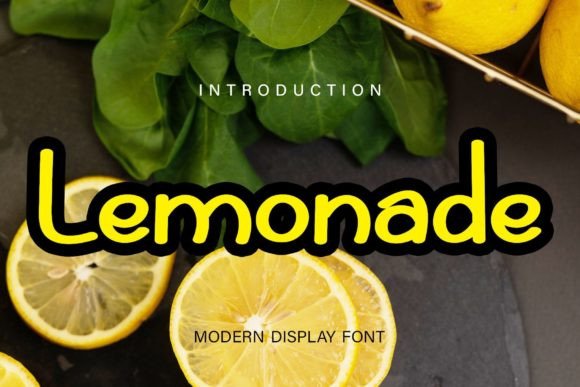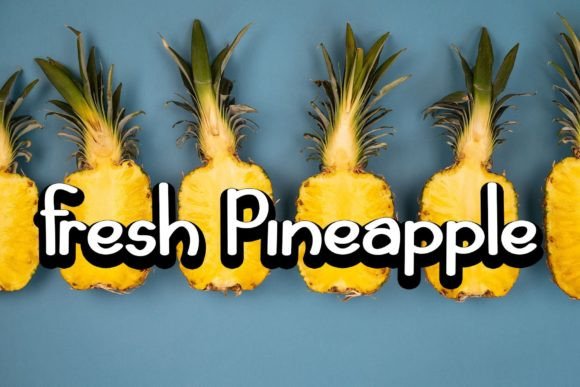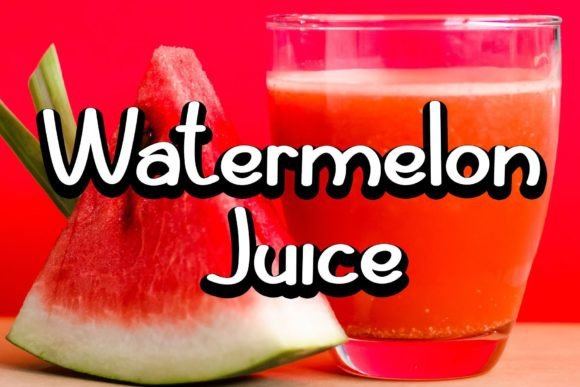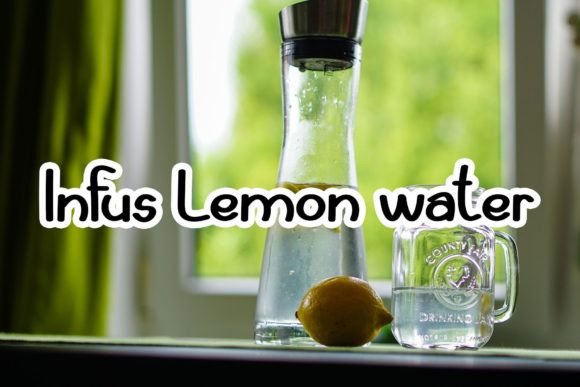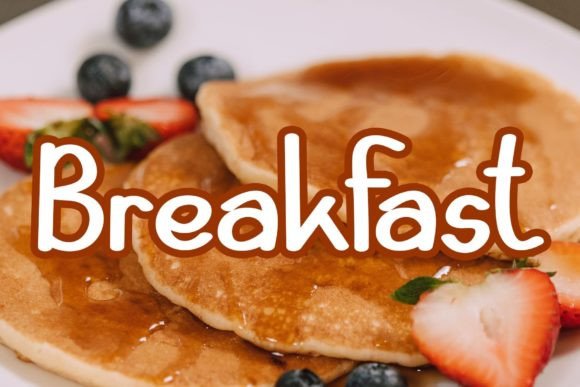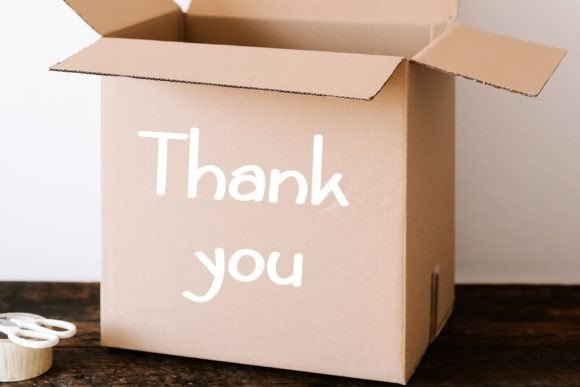
Lemonade Font
About Lemonade Font
Lemonade is more than just a font; it’s a burst of playful energy and natural charm that effortlessly adds life to your creative ideas. This fun and lively handwritten font exudes a sense of freshness and spontaneity, making it a perfect choice for a wide range of design projects.
Picture Lemonade in a summer-themed design. Its playful characters capture the essence of sunshine and joy, instantly infusing your project with a sense of warmth and enthusiasm. Whether you’re designing a cheerful party invitation, a vibrant poster for a community event, or a lively banner for a beach party, Lemonade brings a splash of color and liveliness, making your design come alive with its energetic spirit.
In nature-inspired designs, Lemonade shines brightly. Its organic and handwritten style complements projects featuring botanical elements, wildlife, or outdoor activities. Use it for eco-friendly product labels, garden event posters, or environmental awareness campaigns, and notice how it effortlessly conveys a sense of natural beauty and simplicity. The font’s casual and free-spirited vibe creates an immediate connection with nature, making your designs feel authentic and approachable.
Lemonade also adds a touch of whimsy to children’s projects. Imagine it in a playful book cover design, a colorful educational app, or a fun board game. Its friendly and approachable appearance appeals to young audiences, creating an enjoyable and engaging experience. The font’s lively and carefree nature encourages creativity and imagination, making it a delightful choice for projects aimed at kids.
Moreover, Lemonade seamlessly integrates into social media graphics, blog posts, and online advertisements. Its relaxed and natural vibe makes your content more relatable and inviting. Whether you’re sharing inspirational quotes, crafting DIY tutorials, or promoting a laid-back lifestyle brand, Lemonade enhances the visual appeal and makes your message resonate with authenticity and friendliness.
In summary, Lemonade is a font that brings your creative ideas to life. Its fun and natural handwritten style injects a sense of playfulness and freshness into your designs, making them vibrant and captivating. So, let Lemonade be the zest in your projects and watch as it transforms them into lively and engaging creations, leaving a delightful impression on everyone who experiences them.